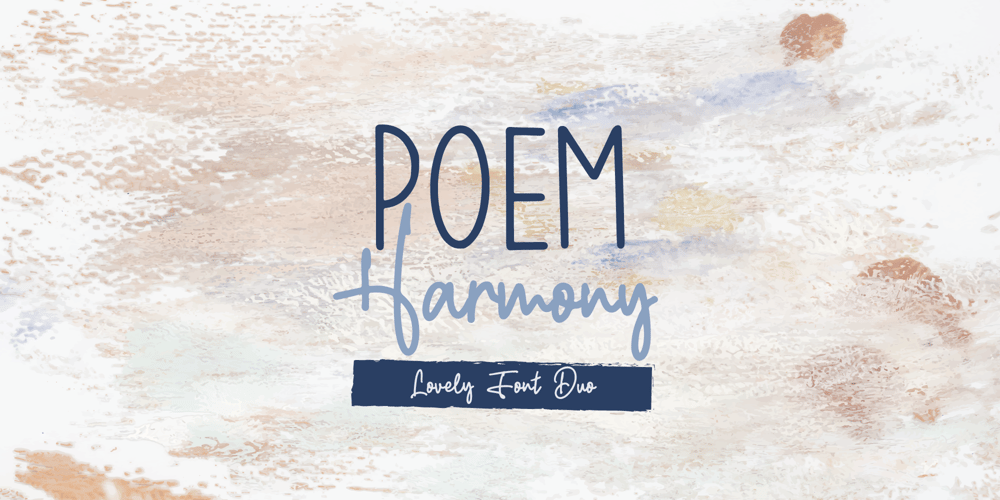
Poem Harmony Font Family was designed by Lia Almuknisa and published by Fromletterel. Poem Harmony contains 3 styles and family package options. Introducing to a usable handwritten font family : Poem Harmony.Just like the name Poem Harmony, this fonts will beautify your design with its lovely look, you can also harmonize the font and create phenomenal works. This is a very easy usable family font, it is perfect to your signature, business card, branding, also will be very gorgeous to your quote for social media post and obviously will be very great to be applied to mug, tote bag or any kind of crafts.